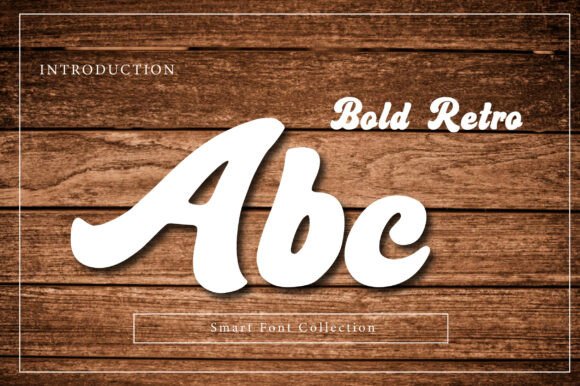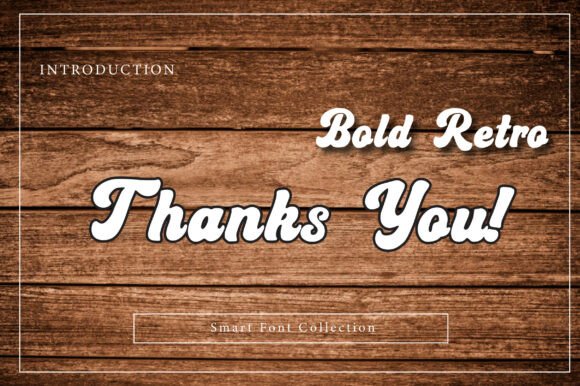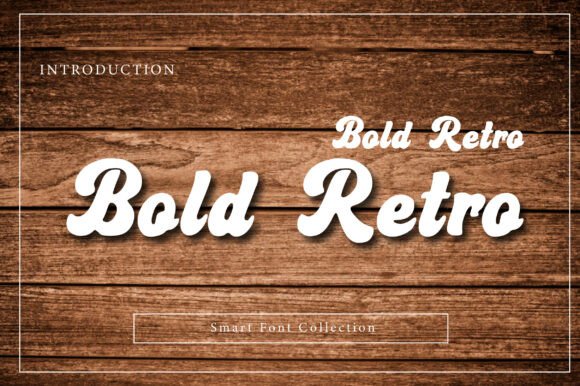
Bold Retro Font: A Vibrant and Expressive Display Typeface
Take a trip back to the era of peace, love, and bold design with the Bold Retro font, a standout display typeface from the Smart Font Collection that captures the essence of 70s typography. Inspired by classic retro and vintage typography styles, this font is perfect for designers looking to tap into the “modern vintage” trend.
Characteristics of Bold Retro Font
The Bold Retro typeface features luscious, pillowy curves and a rhythmic, “bouncing” baseline that evokes a sense of movement and groovy energy. Its heavy weight and soft, approachable silhouette make it highly legible even on textured backgrounds like natural wood grain. This unique combination of characteristics makes the Bold Retro font a versatile tool for a wide range of design applications.
Design Applications for Bold Retro Font
The Bold Retro font is perfect for high-impact nostalgia, making it an ideal choice for designers looking to create eye-catching graphics that stand out in the feed. Some potential design applications for the Bold Retro font include:
- Craft soda labels: Add a touch of retro charm to your craft soda labels with the Bold Retro font.
- Boutique record store branding: Create a fun and personality-rich brand identity for your boutique record store with the Bold Retro font.
- High-energy social media graphics: Use the Bold Retro font to create eye-catching social media graphics that stand out in the feed.
- Trendy café logos: Create a fun and personality-rich logo for a trendy café with the Bold Retro font.
- Stand labels: Use the Bold Retro font to create eye-catching stand labels that showcase your brand’s personality.
Why Choose Bold Retro Font?
The Bold Retro font offers a unique combination of characteristics that make it an attractive choice for designers. Some of the benefits of using the Bold Retro font include:
- High legibility: The Bold Retro font is highly legible even on textured backgrounds, making it perfect for a wide range of design applications.
- Versatility: The Bold Retro font can be used for a wide range of design applications, from craft soda labels to high-energy social media graphics.
- Unique style: The Bold Retro font features a unique and distinctive style that is sure to make your designs stand out.
Tips for Using Bold Retro Font
Here are some tips for using the Bold Retro font in your designs:
- Pair with complementary fonts: Pair the Bold Retro font with complementary fonts to create a visually appealing design.
- Use on textured backgrounds: Take advantage of the Bold Retro font’s high legibility on textured backgrounds to add depth and interest to your designs.
- Experiment with colors: Experiment with different colors to find the perfect combination that showcases the Bold Retro font’s unique style.
The Bold Retro font is a vibrant and expressive display typeface that captures the essence of 70s typography. With its luscious, pillowy curves and rhythmic, “bouncing” baseline, this font is perfect for designers looking to tap into the “modern vintage” trend. Whether you’re creating a craft soda label, a boutique record store’s branding, or high-energy social media graphics, the Bold Retro font is sure to make your designs stand out.